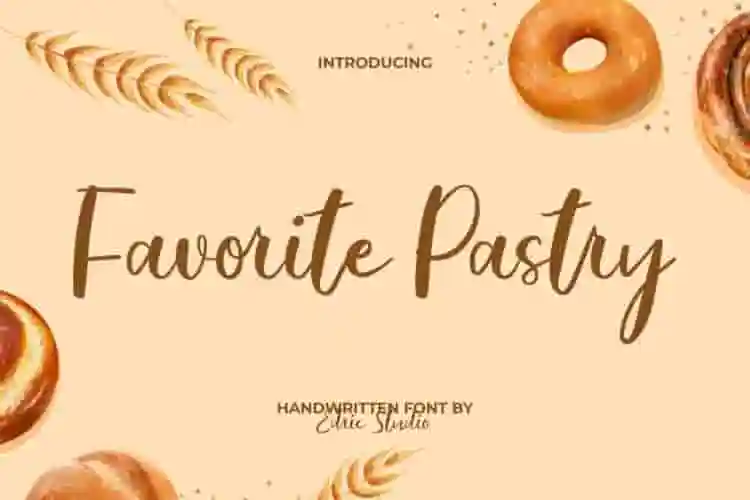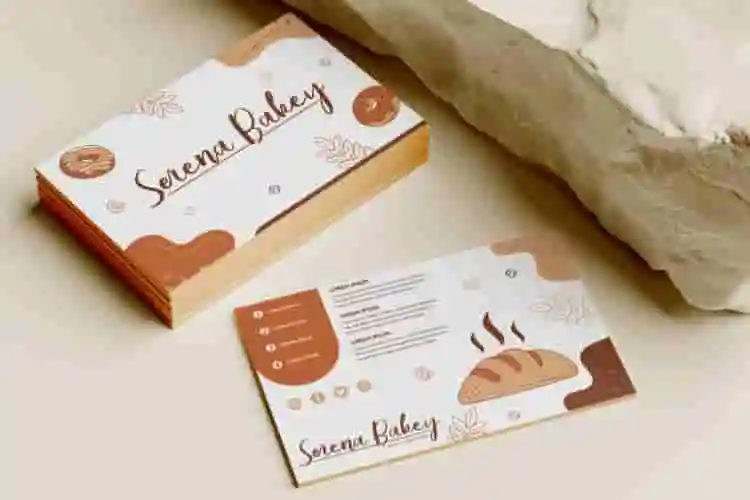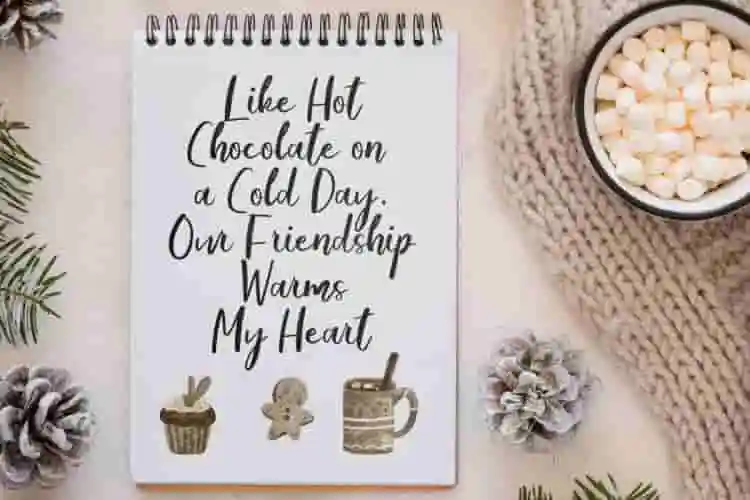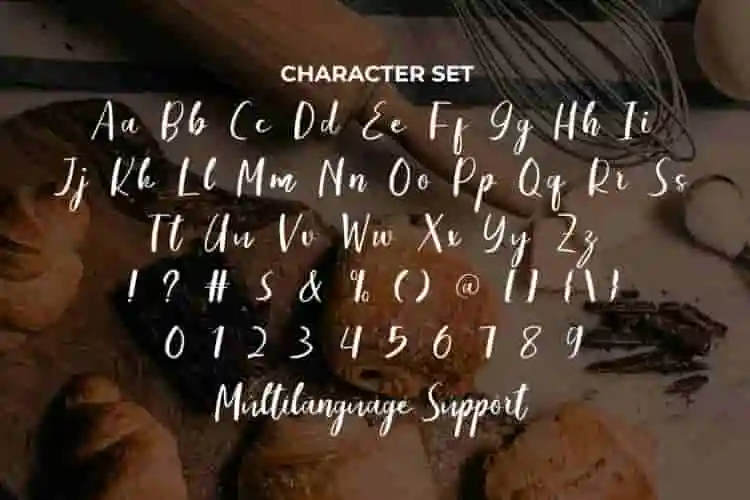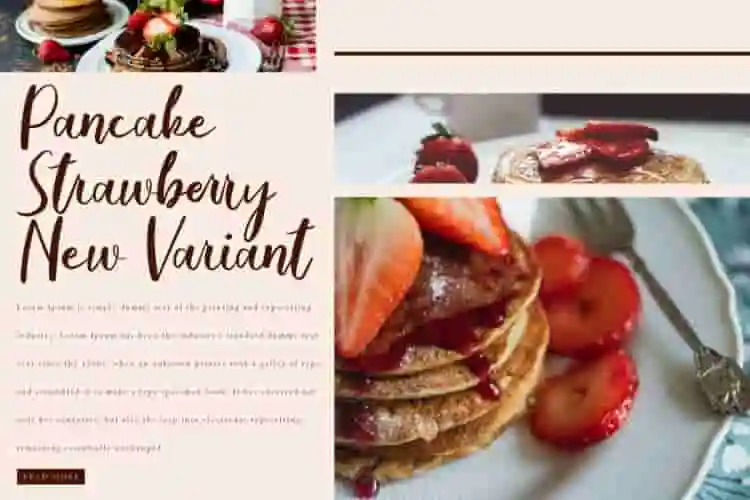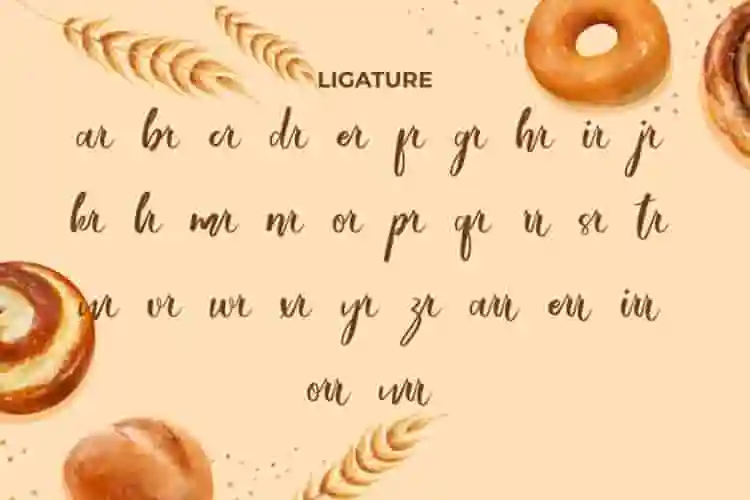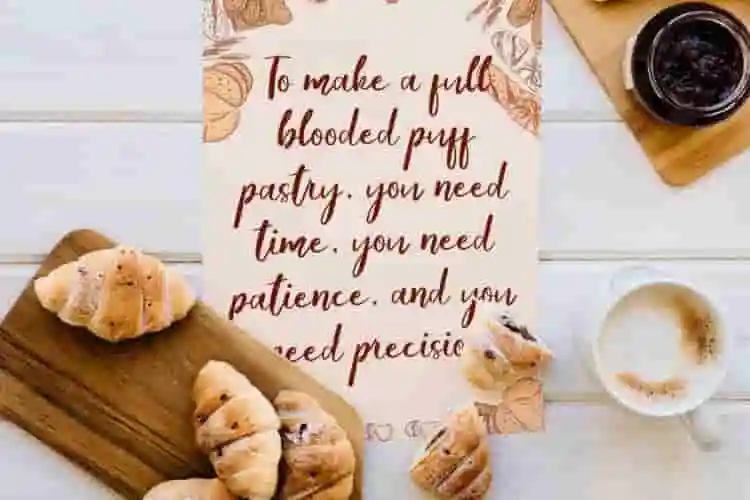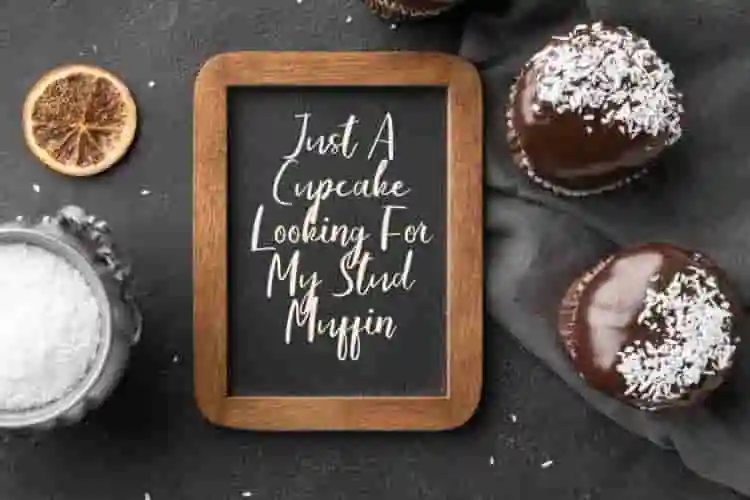
Favorite Pastry Brush Calligraphy Font
Favorite Pastry Brush Font a beautiful handwritten typeface that flows as smoothly as pastry dough in a bakery. With elegant thin-to-thick contrasts and graceful curves, this font brings warmth and personality to any project.
Favorite Pastry Brush Calligraphy Font provides a full set of Basic Uppercase and Lowercase Characters, Numbers, Punctuation, Symbols, and Ligature. The appearance of this font is very neat and aesthetic. Handcrafted with modern aesthetics, Favorite Pastry Font is perfect for wedding invitations, logos, product packaging, quotes, labels, greeting cards, flyers, blogs, and websites.
Favorite Pastry Font a playful typeface with unique decoration in each character. It’s tested to work well in the Adobe Apps (Illustrator, Adobe InDesign, Adobe Photoshop) even work on Microsoft Word. Thanks to PUA encoding, every glyph and alternate character is accessible for custom creative control.